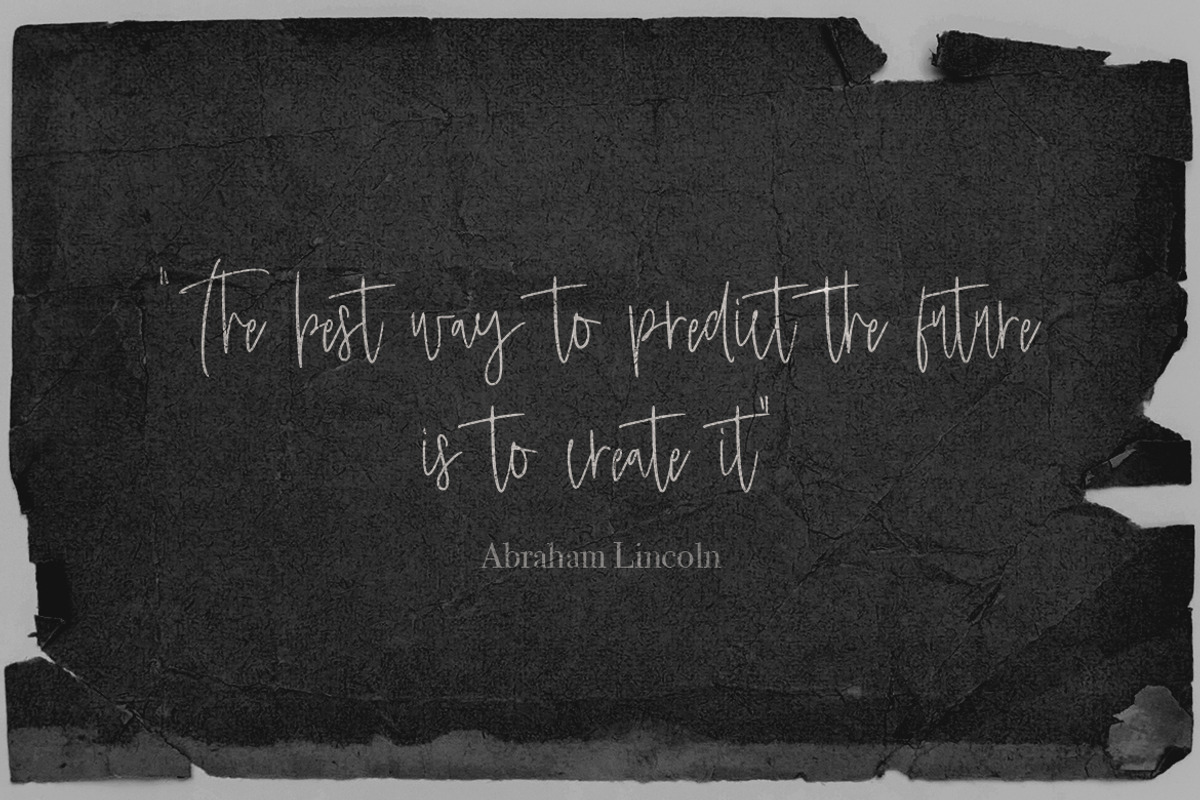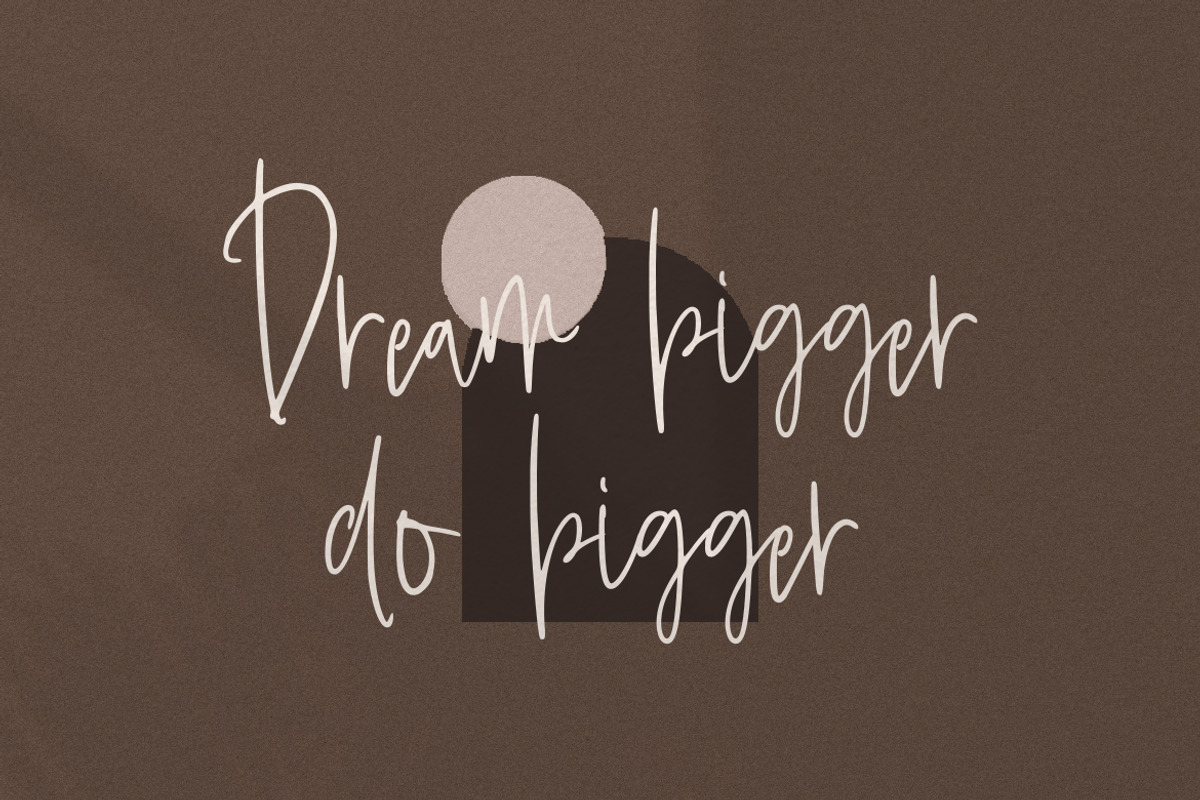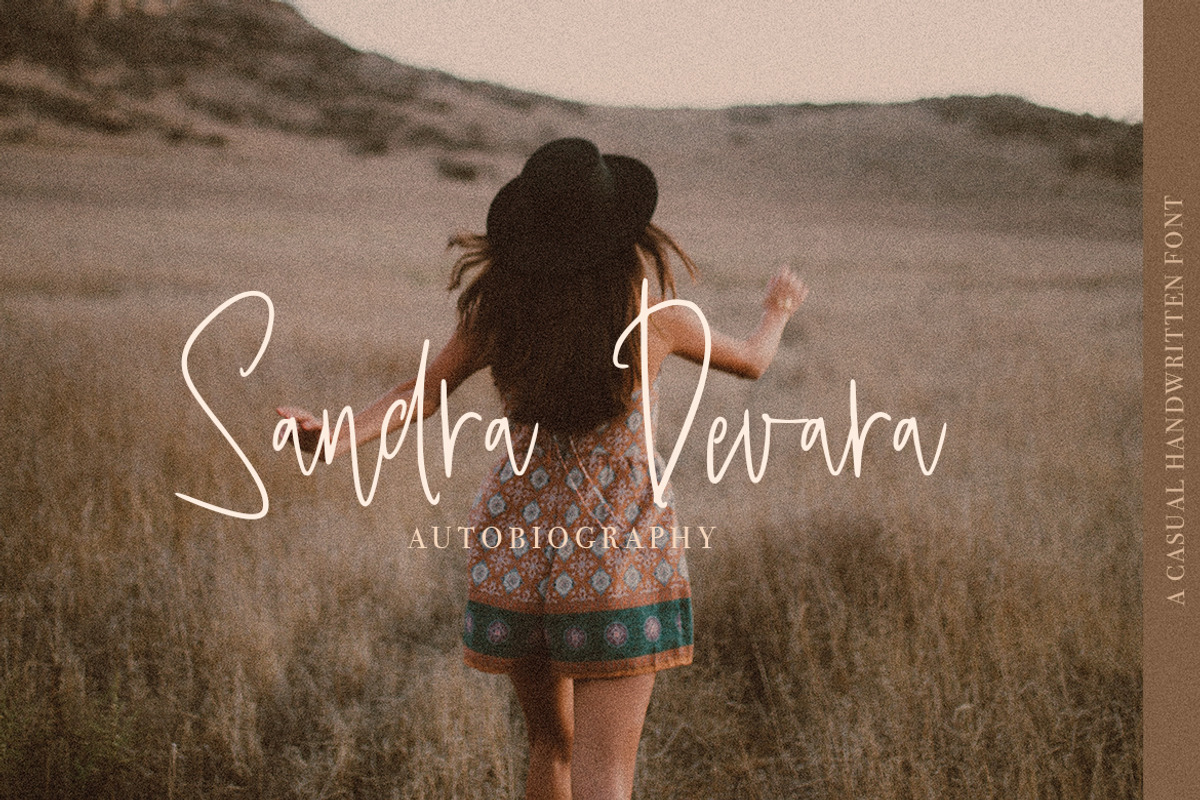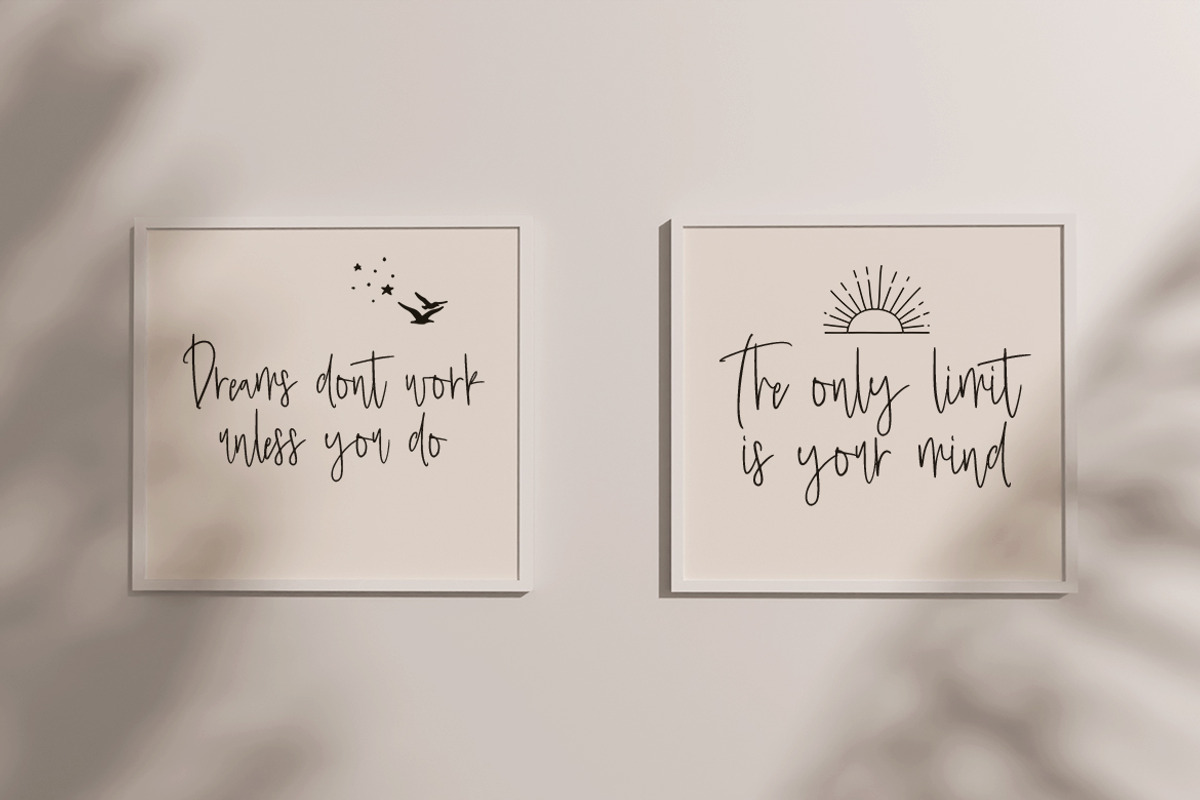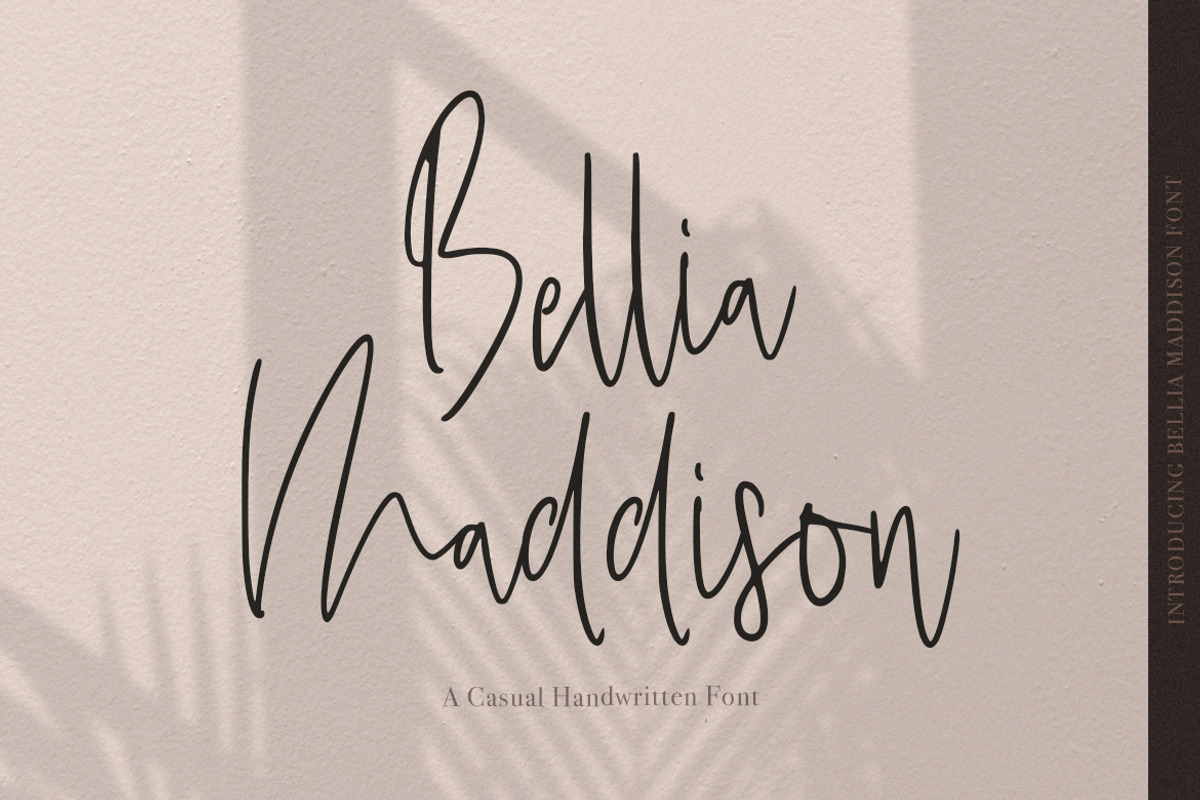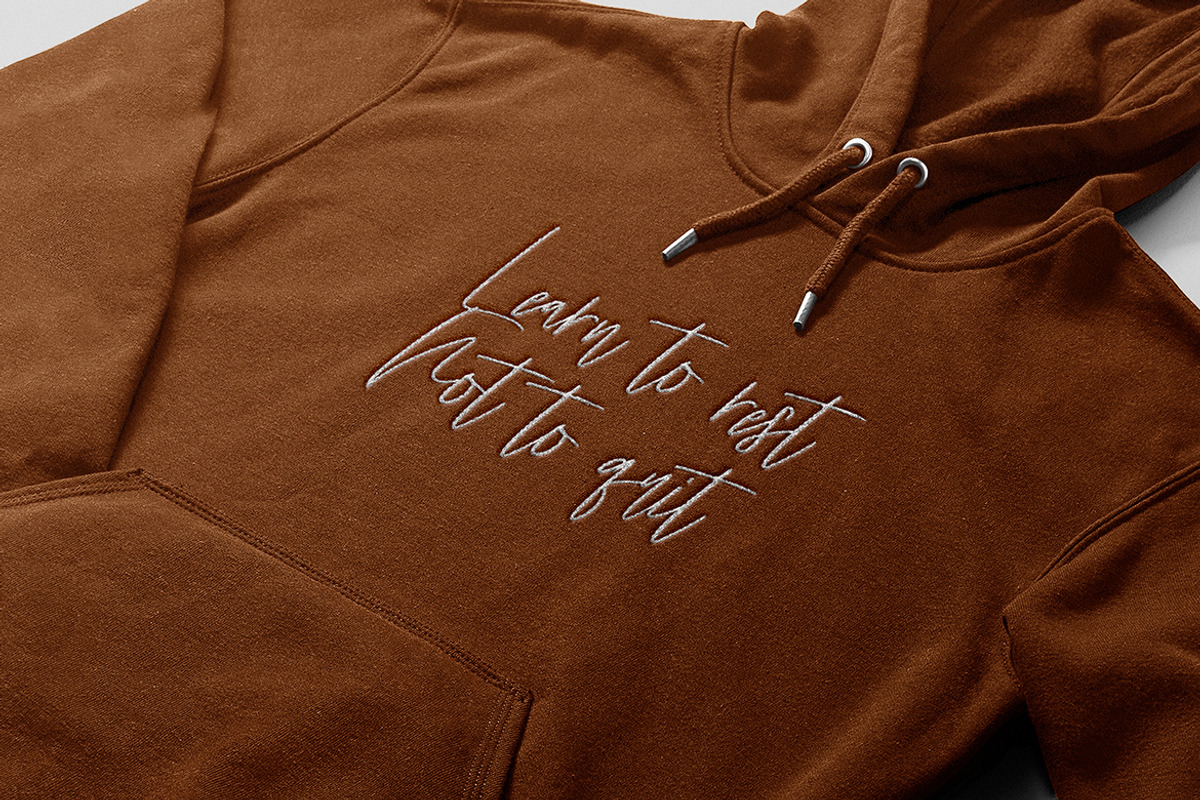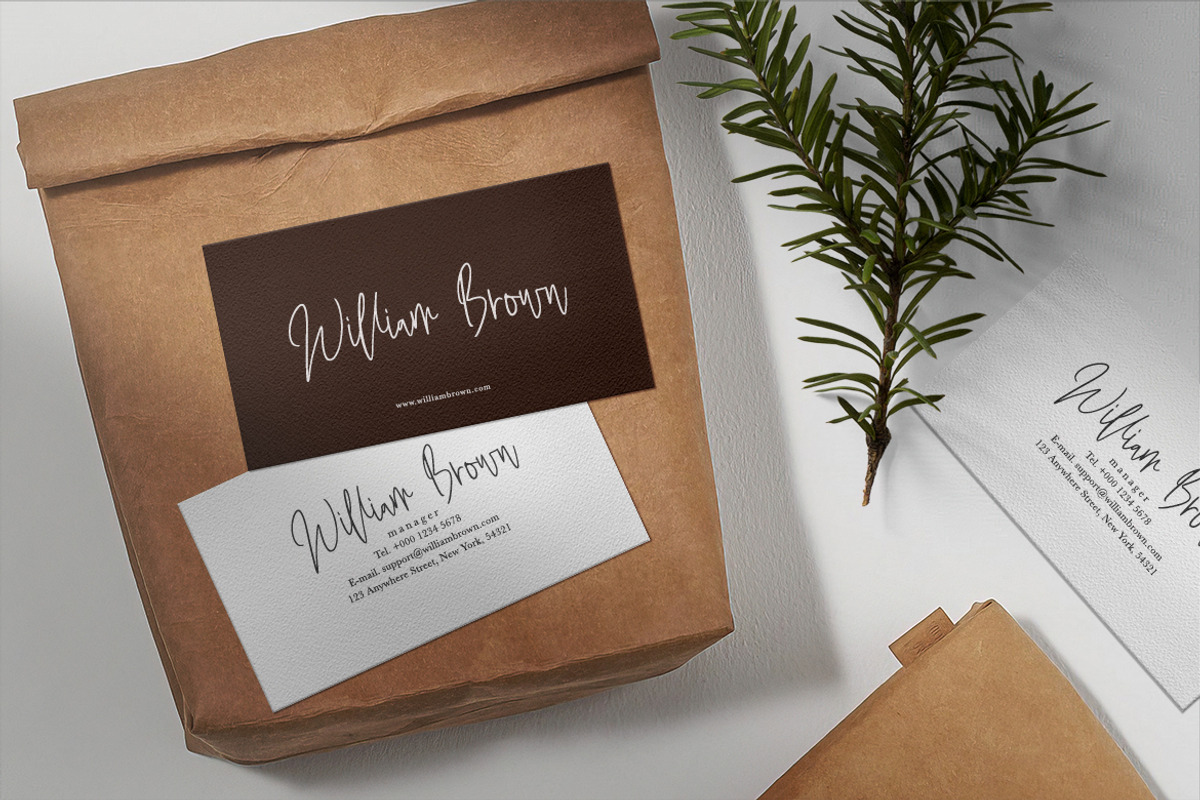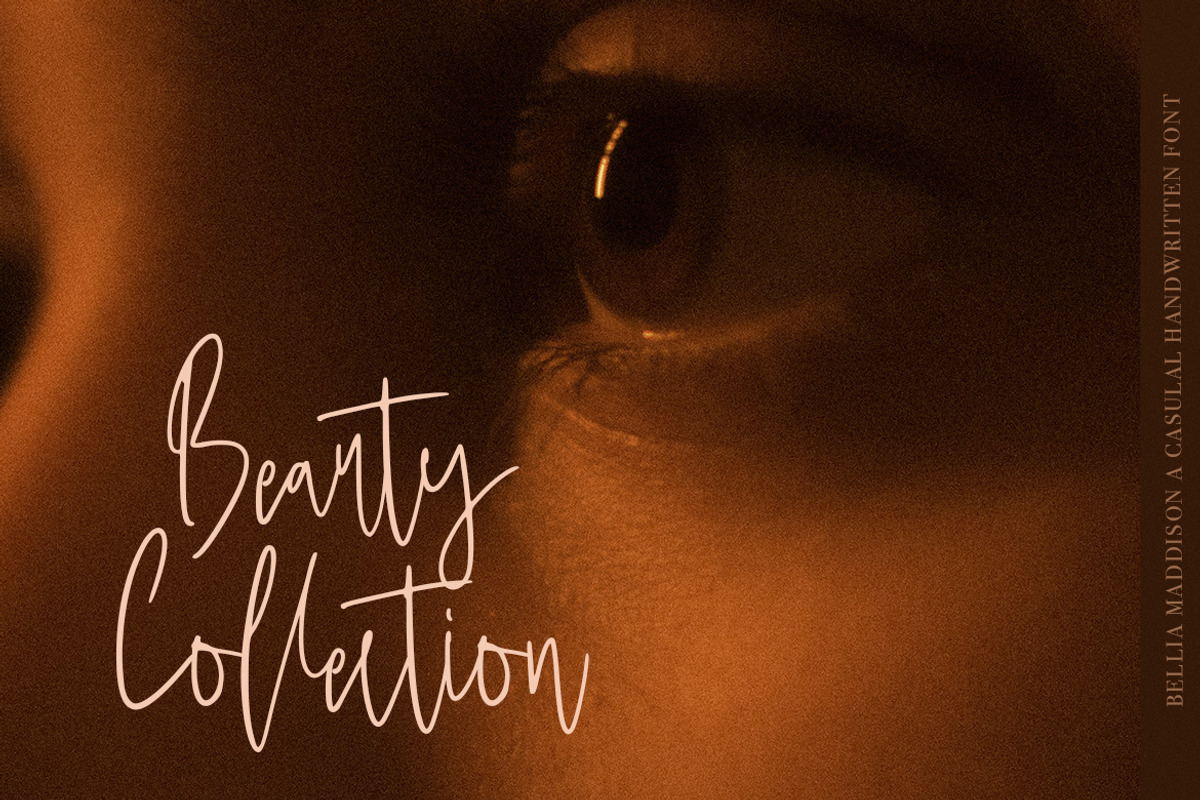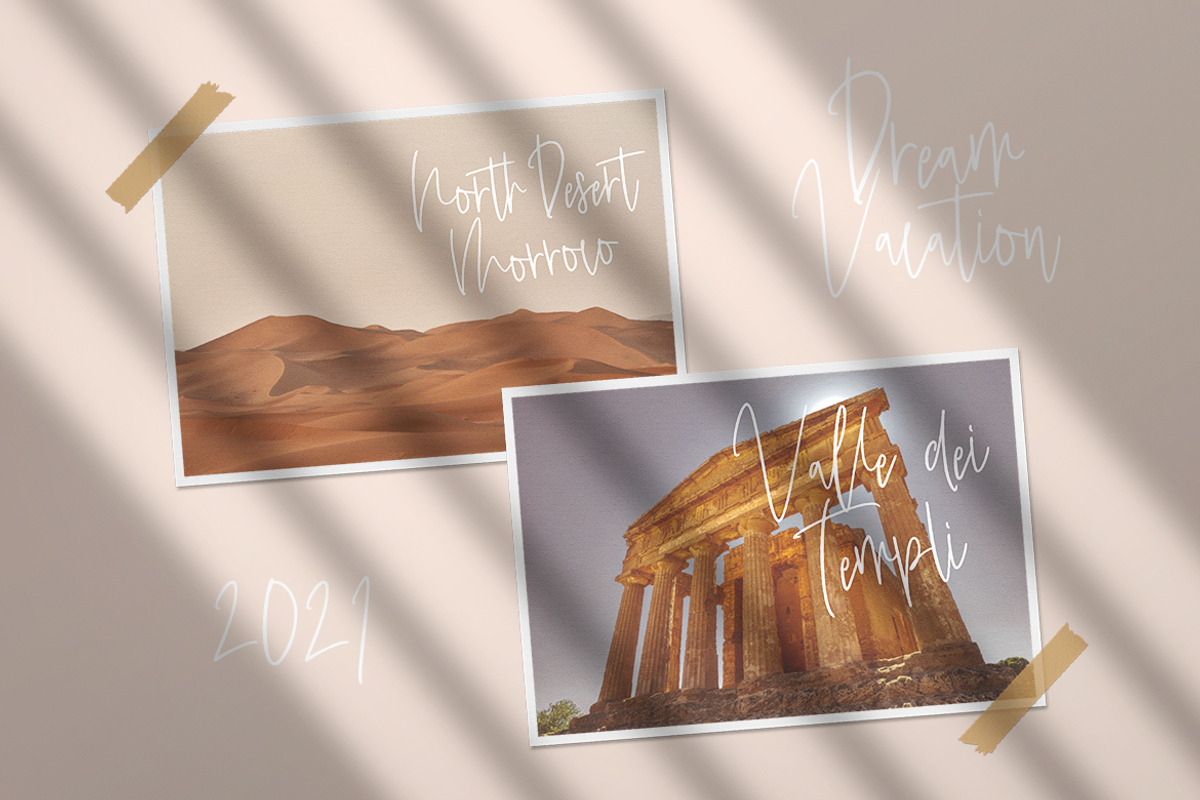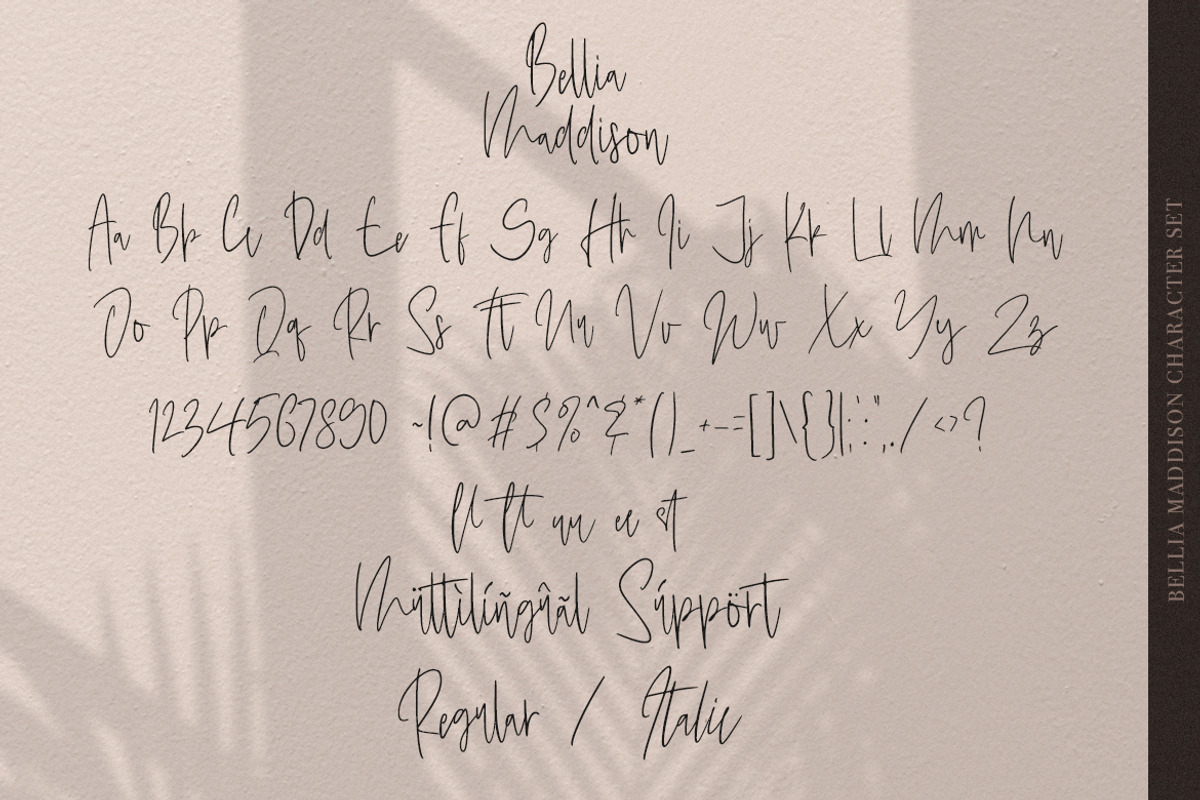
Bellia Maddison
Bellia Maddison is perfect for many different projects such as logos & branding, invitation, stationery, wedding designs, social media posts, advertisements, product packaging, product designs, label, photography, watermark, special events, or anything.
- Numerals and Punctuations (OpenType Standard)
- Many of alternates
- ligature